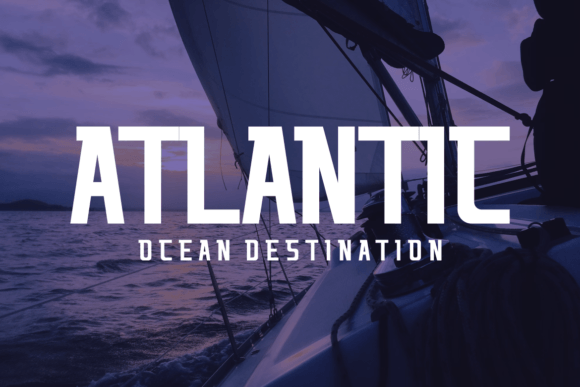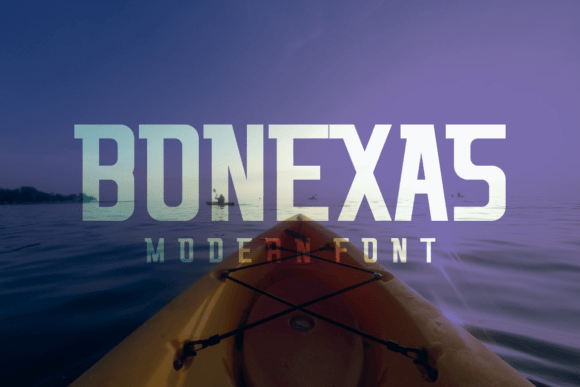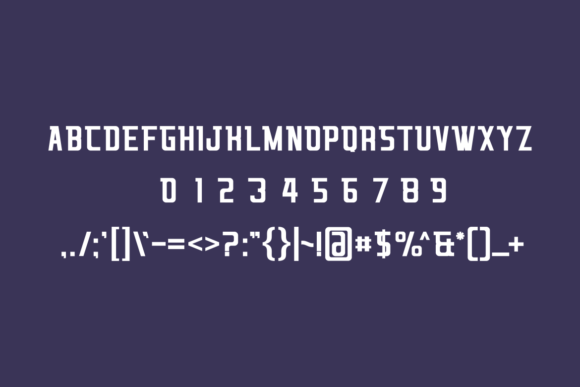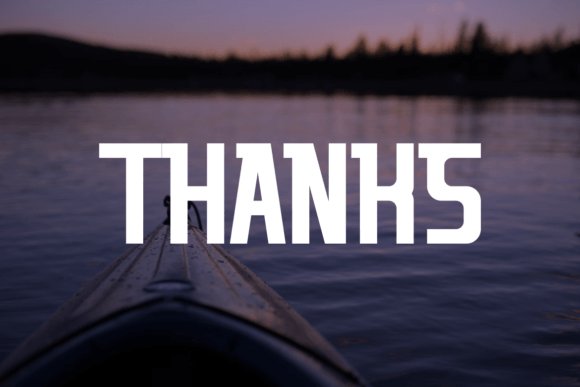
Bonexas Font: Elevate Your Designs with a Stylish and Modern Display Font
In the world of typography, a font can make or break a design. When it comes to creating eye-catching headlines, posters, and advertisements, the right font is essential. That’s where Bonexas Font comes in – a stylish and modern display font that’s perfect for designers and crafters looking to add a touch of sophistication to their work.
The Design of Bonexas Font
Bonexas Font boasts a clean and bold design that’s sure to turn heads. The letters have a sleek, contemporary look that’s both modern and elegant. With its crisp lines and precise curves, Bonexas Font is the perfect choice for anyone looking to create stunning visual content. Whether you’re designing a logo, creating a poster, or crafting a social media advertisement, Bonexas Font is sure to make your text stand out and grab attention.
Key Features of Bonexas Font
- Clean and Bold Design: Bonexas Font features a clean and bold design that’s perfect for creating eye-catching headlines and titles.
- Modern and Elegant: The font’s sleek lines and precise curves give it a modern and elegant look that’s sure to impress.
- Highly Versatile: Bonexas Font is perfect for a wide range of design projects, from posters and advertisements to logos and branding materials.
- Easy to Read: Despite its bold design, Bonexas Font is easy to read, making it perfect for use in a variety of contexts.
Why Choose Bonexas Font?
So why choose Bonexas Font over other display fonts on the market? Here are just a few reasons:
- Unique and Memorable: Bonexas Font’s unique design makes it perfect for creating memorable and impactful visual content.
- Professional-Grade: With its clean lines and precise curves, Bonexas Font has a professional-grade look that’s perfect for businesses and designers.
- Customizable: Bonexas Font is highly customizable, making it easy to pair with other fonts and design elements.
How to Use Bonexas Font
Using Bonexas Font is easy. Here are a few tips to get you started:
- Headlines and Titles: Use Bonexas Font to create eye-catching headlines and titles that grab attention.
- Posters and Advertisements: Bonexas Font is perfect for creating stunning posters and advertisements that stand out.
- Logos and Branding: Use Bonexas Font to create unique and memorable logos and branding materials.
Tips and Tricks for Working with Bonexas Font
Here are a few tips and tricks to help you get the most out of Bonexas Font:
- Experiment with Different Sizes: Bonexas Font looks great in a variety of sizes, from large headlines to smaller body text.
- Pair with Other Fonts: Bonexas Font pairs well with a variety of other fonts, making it easy to create visually interesting designs.
- Use in Combination with Images: Bonexas Font looks great when used in combination with images, making it perfect for creating stunning visual content.
In conclusion, Bonexas Font is a stylish and modern display font that’s perfect for designers and crafters looking to add a touch of sophistication to their work. With its clean and bold design, modern and elegant look, and highly versatile nature, Bonexas Font is sure to become a go-to font in your design arsenal. So why wait? Download Bonexas Font today and start creating stunning visual content that grabs attention and leaves a lasting impression.